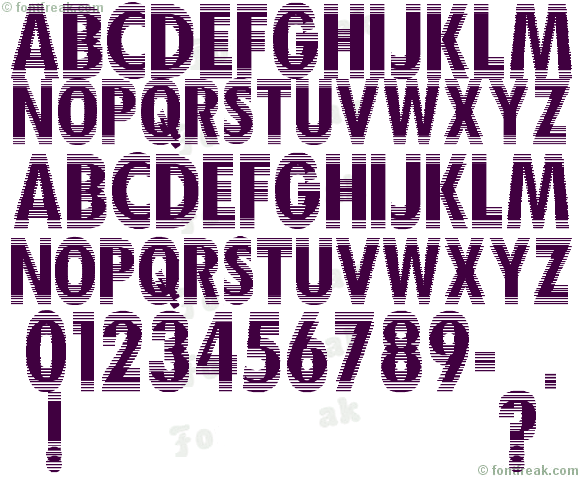
Nervous
About Nervous
Nervous by Anke Art is a captivating display font that falls into the category of decorative typography. This unique font showcases a striking visual style characterized by its distinct stroke weight and rhythmic, wavy lines. The design features a blend of thick and thin strokes that create an engaging contrast, giving the text a dynamic and somewhat playful appearance. The spacing between the letters is thoughtfully arranged, enhancing legibility while maintaining a sense of artistic flair. The decorative elements of the Nervous font evoke a sense of movement, making it an excellent choice for projects that require a lively touch.
The Nervous font is ideal for a variety of creative applications. It works exceptionally well for movie posters, where its bold and energetic style can capture attention and convey excitement. Additionally, it can be used for invitations to trendy events or parties, adding a contemporary twist to the design. Restaurant menus can benefit from the font's unique character, making the branding stand out and appeal to a modern audience. Graphic designers will find it valuable in creating eye-catching promotional materials or social media graphics that require a strong visual statement. Small business owners looking to establish a memorable brand identity will also appreciate its distinctive qualities.
Targeting graphic designers, small business owners, and content creators, the Nervous font free download provides accessibility to those seeking to elevate their design projects. What sets this font apart is its ability to bring energy and personality to any design, making it a versatile choice for various applications. Whether you're crafting marketing materials or personal projects, the Nervous font adds a unique and engaging element that is sure to leave an impression.